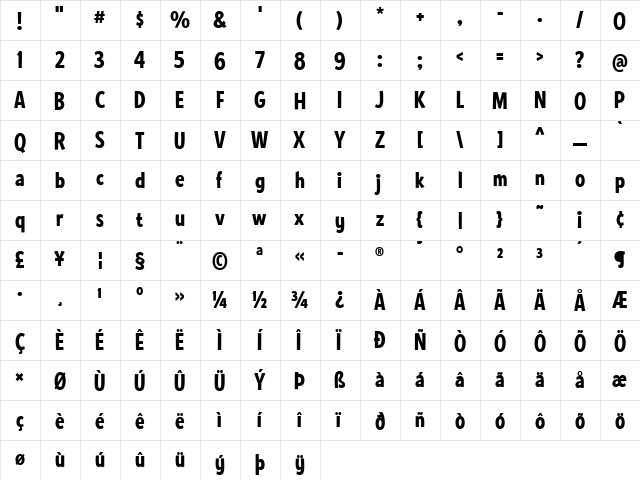
EdTTF Gothic
Gothic ·  Ed Benguiat, Ken Barber ·
DesignerEd Benguiat, Ken Barber
Design Context for EdTTF Typeface
EdTTF has the quiet confidence of well-executed sans-serif typography: versatile, unobtrusive, and dependable at any size.
Font Pairing: Works well alongside a characterful serif or display font that can carry the expressive load while EdTTF handles the functional copy.
Pro Tip: Use EdTTF for UI labels, navigation, and short-form body copy where clean legibility is the priority.